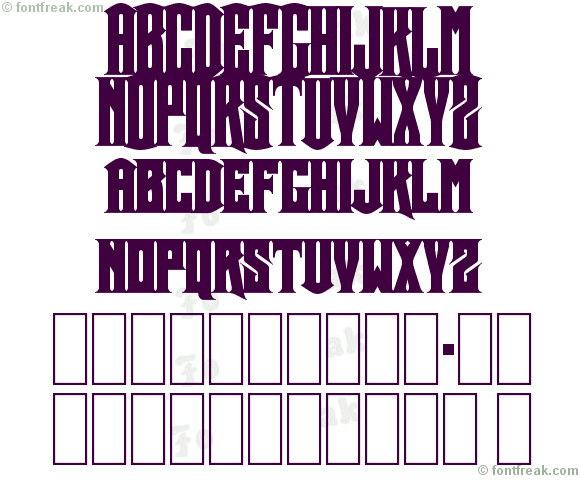
Crown Title
About Crown Title
Crown Title, designed by Jonathan Paterson, is a striking display font that falls within the decorative category. This font features a bold, commanding presence with its unique serif style, characterized by sharp, angular strokes and a distinctive vintage flair. The stroke weight varies significantly, creating a strong contrast that enhances its visual impact. The spacing between the letters is purposely tight, lending an air of cohesion that draws the eye, making it particularly effective for captivating headlines and titles.
The Crown Title font excels in various applications, making it a versatile choice for graphic designers and content creators alike. Its bold aesthetic makes it ideal for wedding invitations where a touch of elegance is desired, as well as for movie posters that demand attention. Additionally, it can be effectively used in restaurant menus to convey a sense of sophistication, or in promotional materials for events that aim to evoke a sense of grandeur. Small business owners looking to establish a memorable brand identity will also find this font to be a valuable asset.
The target audience for Crown Title includes graphic designers seeking distinctive typefaces, small business owners aiming for unique branding, and content creators who want to make their projects stand out. With its dramatic flair and artistic design, this font offers a fresh take on traditional typography.